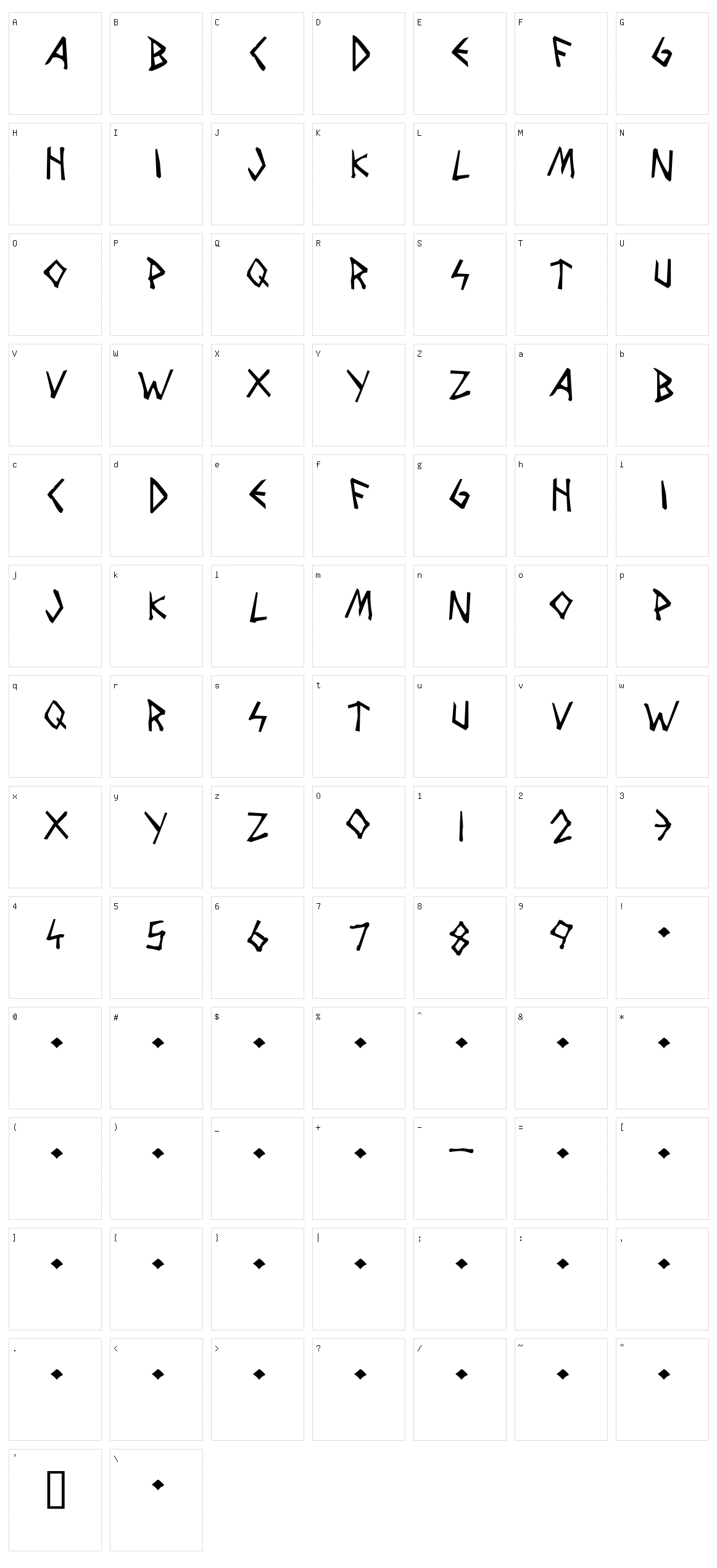
Wolves and Ravens
Wolves & Ravens 1.1
An TrueType Font by S. John Ross
A product of the Cumberland Fontworks
This is a simple fantasy font based on a player handout I created
for a fantasy campaign in my teenage years. There was a cryptic
message - "Wolves and Ravens Devour the Unwary" - carved into the
side of a wooden footbridge, as an omen of things to come. The
handwriting was meant to represent a quasi-runic style of Roman
letters, of the sort that might be crudely carved with a dagger
into the soft wood of the bridge rail.
This font expands those characters into a full alphabet of 26
letters, plus 0-9 and a squarish "bullet" that serves as a
generic sort of punctuation mark. These are the only characters
in the font.